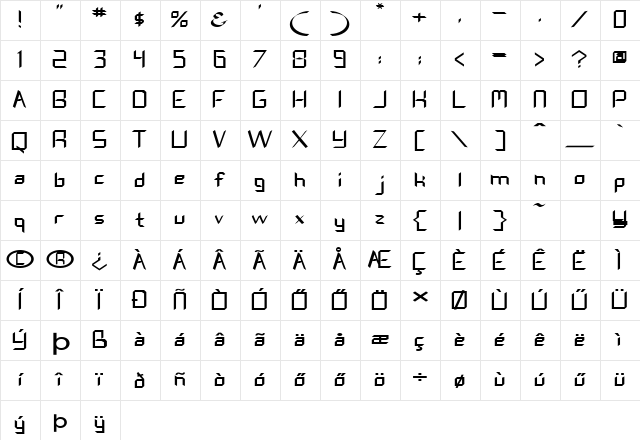
DIGITAL08 EX HU has a distinctly futuristic character, with geometric precision and clean angles that feel at home in technology, gaming, and sci-fi contexts.
Pro Tip: Try DIGITAL08 EX HU with generous letter-spacing in UI labels and navigation - the geometric forms benefit from room to breathe.